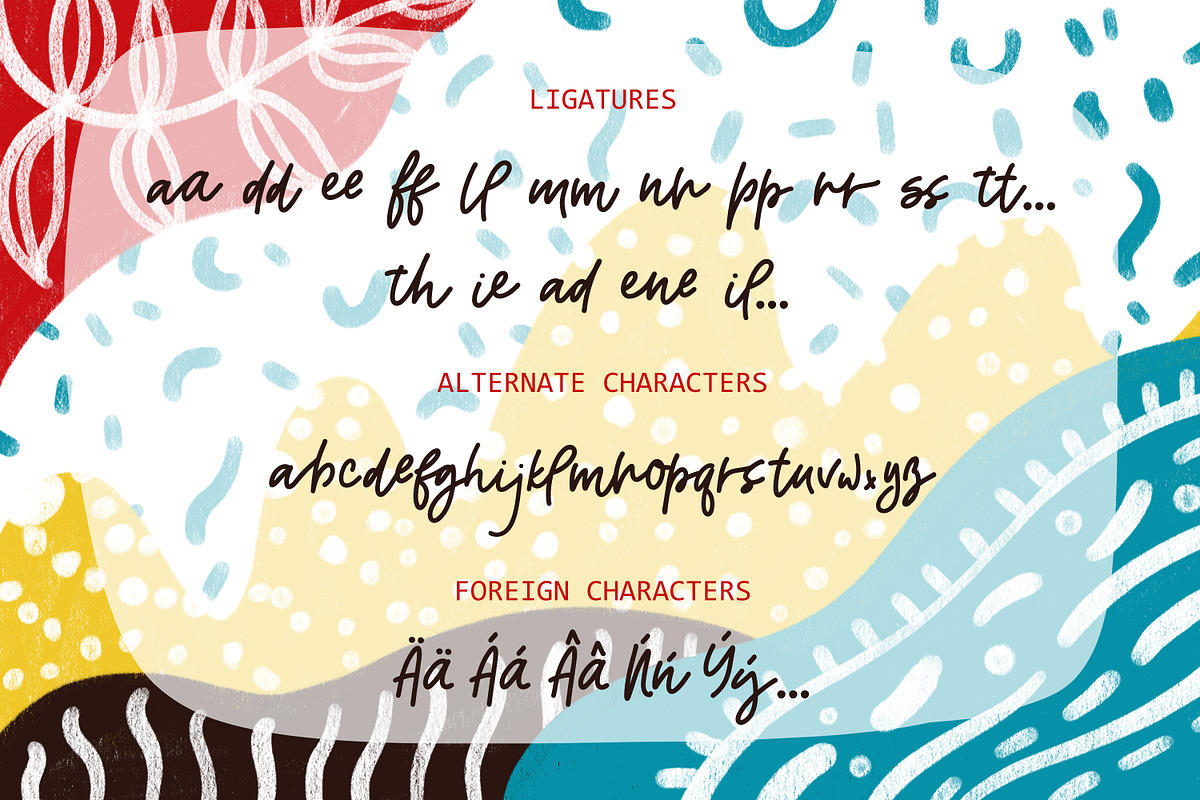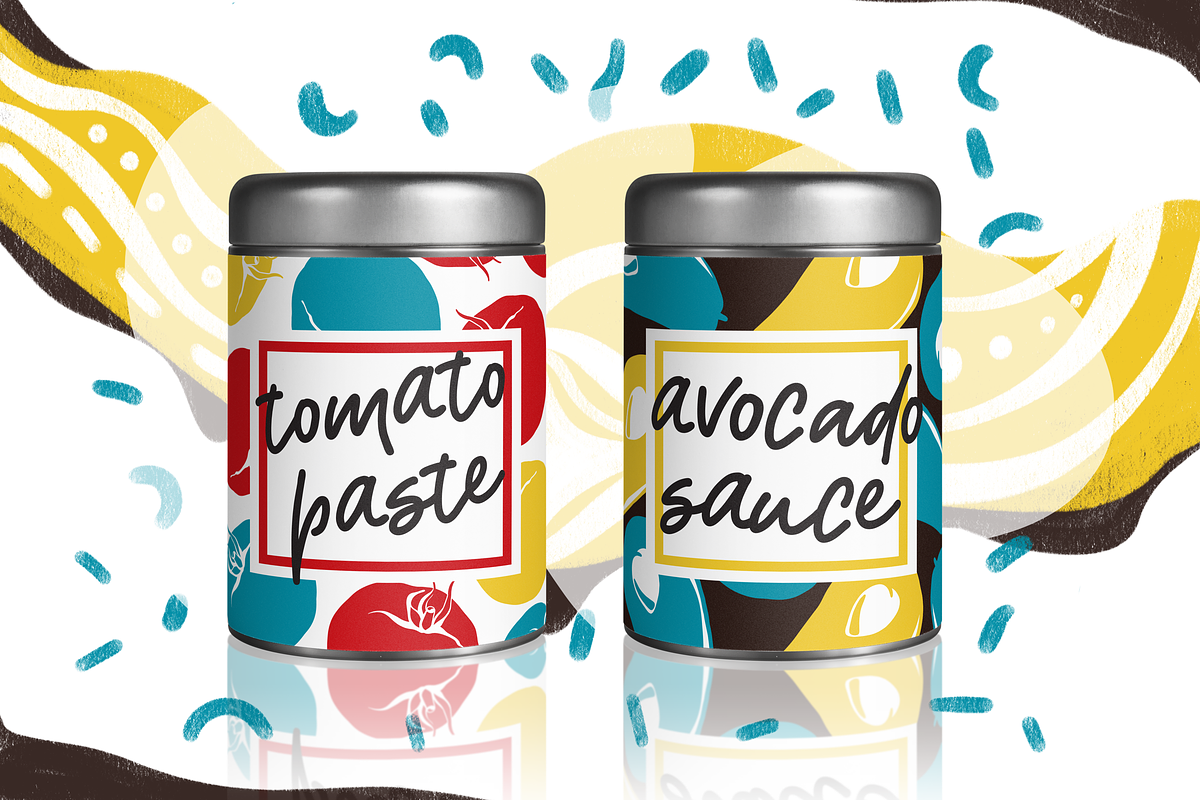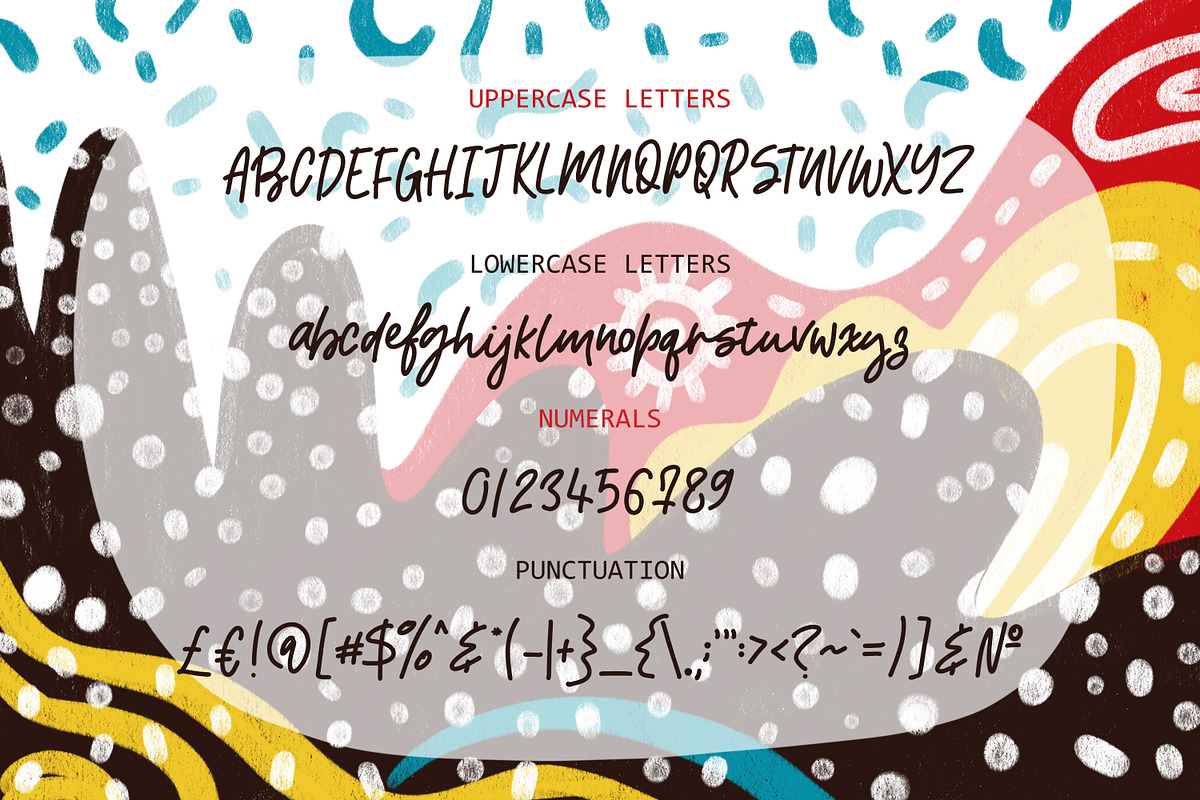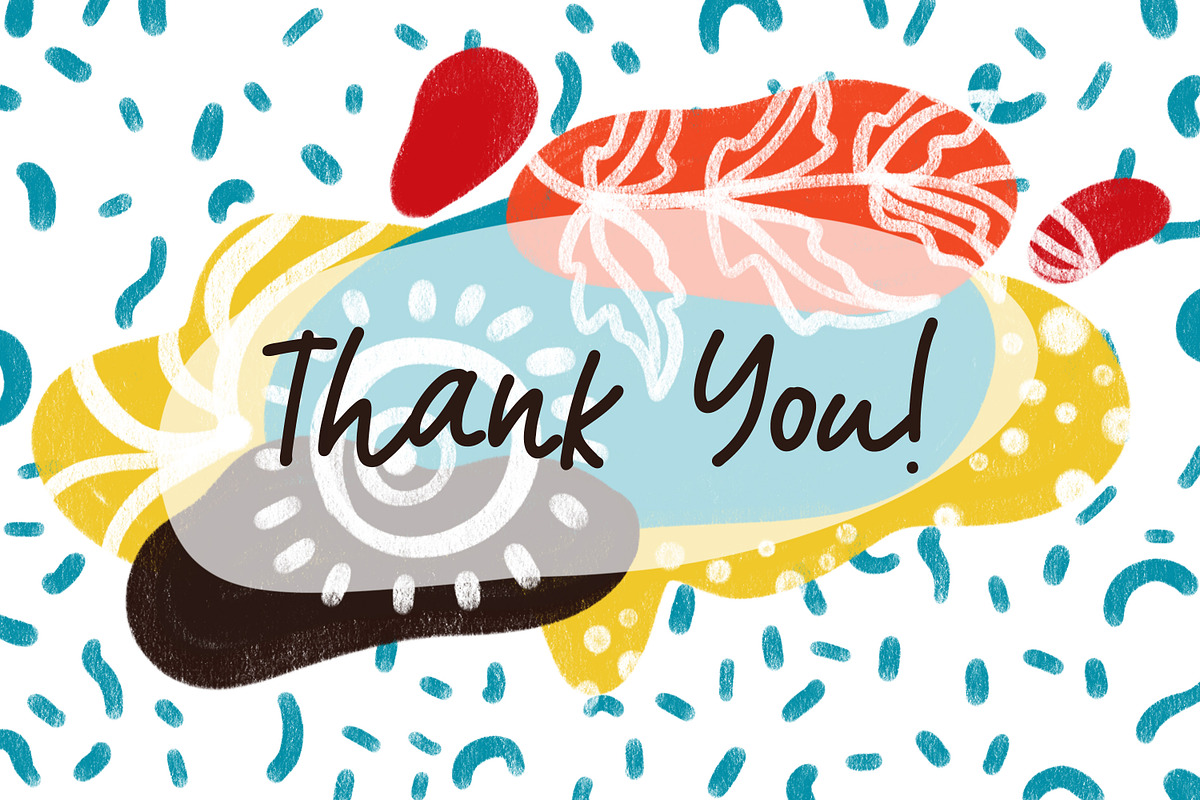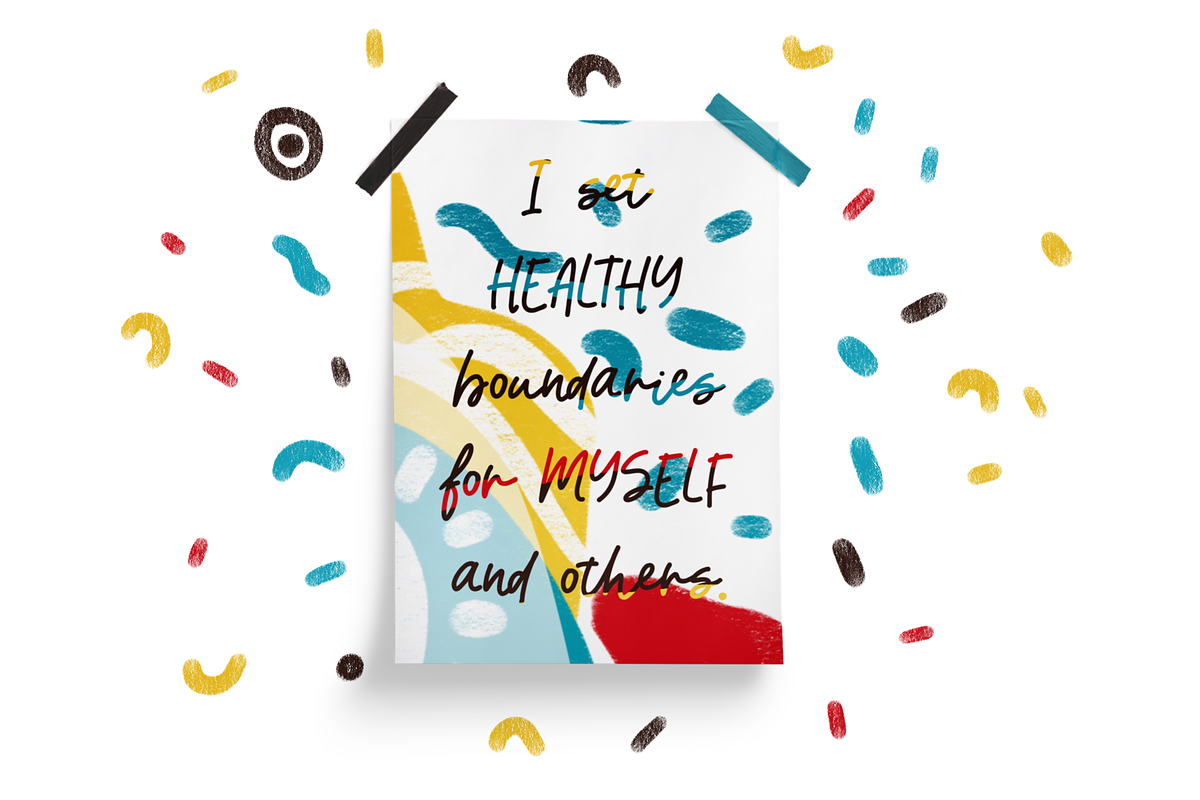
NEW! Winsomeness Handwritten Font!
Hello! I'm glad to see everyone. Also, I'm happy to introduce you to my new font Winsomeness! This is a really cool, bright, stylish font, painted completely by hand with great love and incredible inspiration!